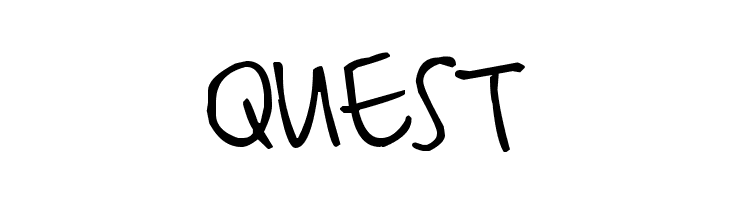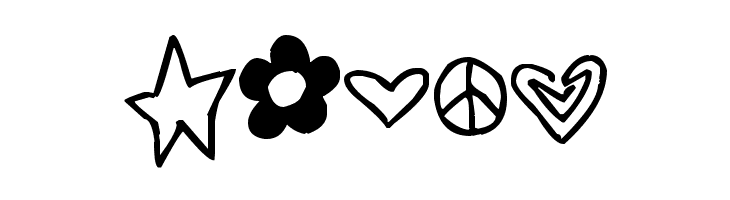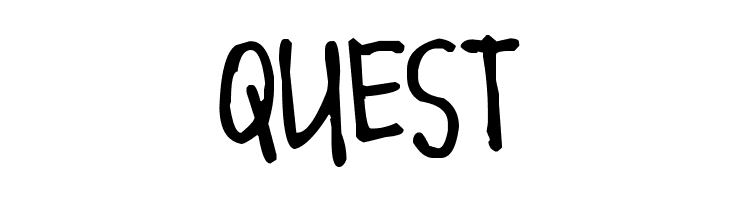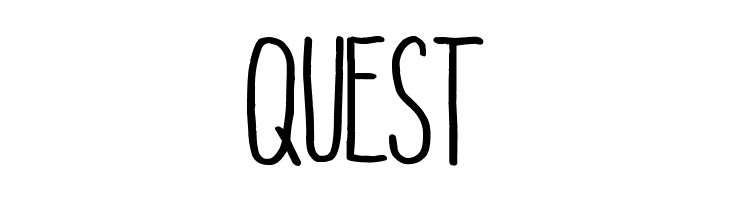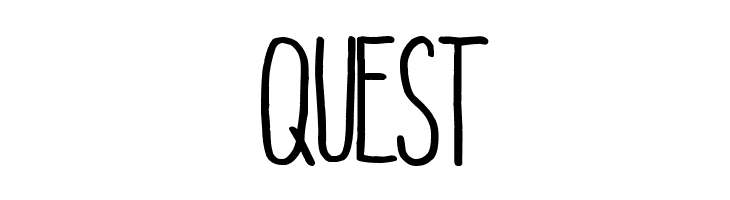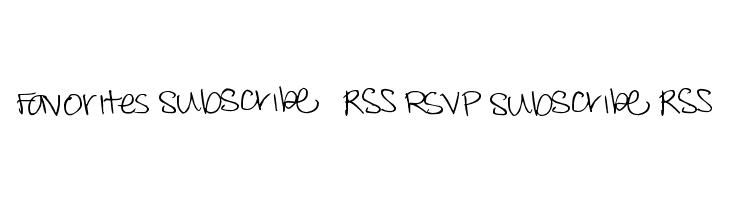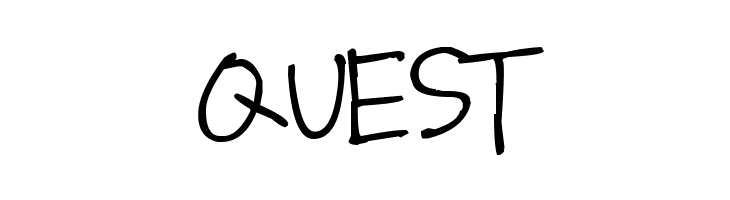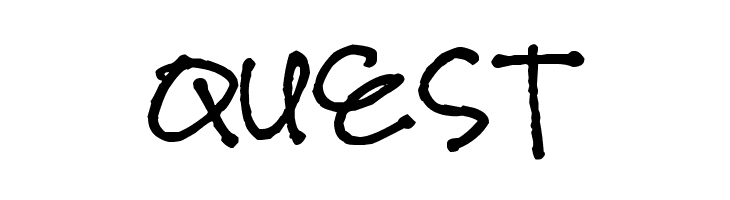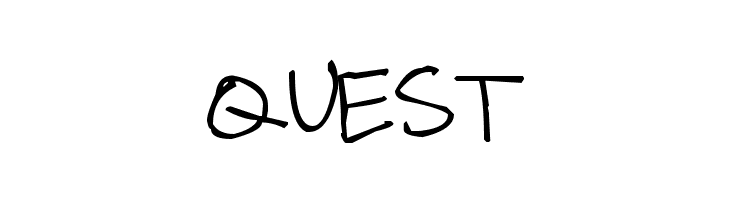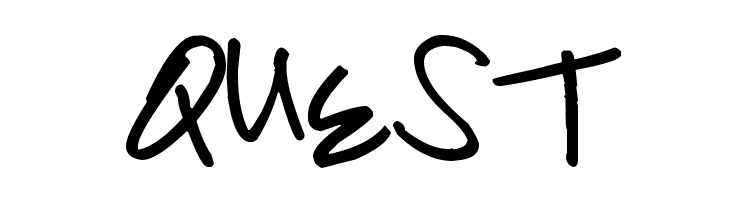
• Pea Missy Cursive
A playful cursive font with flowing, interconnected letterforms.
• Pea Monica
A playful, casual handwritten font with irregular strokes.
• Pea Mystie
A playful, hand-drawn font with a whimsical and informal style.
• Pea Mystie Caps
A playful, handwritten font with tall, narrow letters and a whimsical style.
• Pea Mystie Unicase
A playful unicase font with a hand-drawn, whimsical style.
• Pea Nancy
A playful, casual handwritten font with bold, uneven strokes.
• Pea Neffer
A playful, handwritten font with a casual and informal style.
• Pea Nicole
A playful, handwritten font with bold, irregular strokes and a quirky, informal style.
• Pea Olson
A casual, handwritten font with fluid strokes and a playful style.
• Pea Panda's Doodles
A playful collection of hand-drawn doodle illustrations with a whimsical style.
• Pea Prochazka
A casual, handwritten font with a playful and informal style.
• Pea Protani
A playful, handwritten font with bold strokes and a casual, creative vibe.
• Pea Rachael
A playful, bold handwritten font with a casual and friendly style.
• Pea Randa
A playful, casual handwritten font with smooth, flowing strokes.
• Pea Sara
A playful, casual handwritten font with fluid strokes and a personal touch.
• Pea Sara Script
A playful, handwritten script with flowing, connected letters and a casual aesthetic.
• Pea Sarah Cute
A playful, handwritten font with a whimsical and informal style.
• Pea Sarah Lynne
A playful, casual handwritten font with uneven strokes and a lively feel.
• Pea Sarah Quick
A playful, casual handwritten font with a whimsical and friendly style.
• Pea Sarah's Skittles
A playful, casual handwritten font with a whimsical style.
• Pea Sarahloo
A playful, bold handwritten font with dynamic strokes and a casual feel.